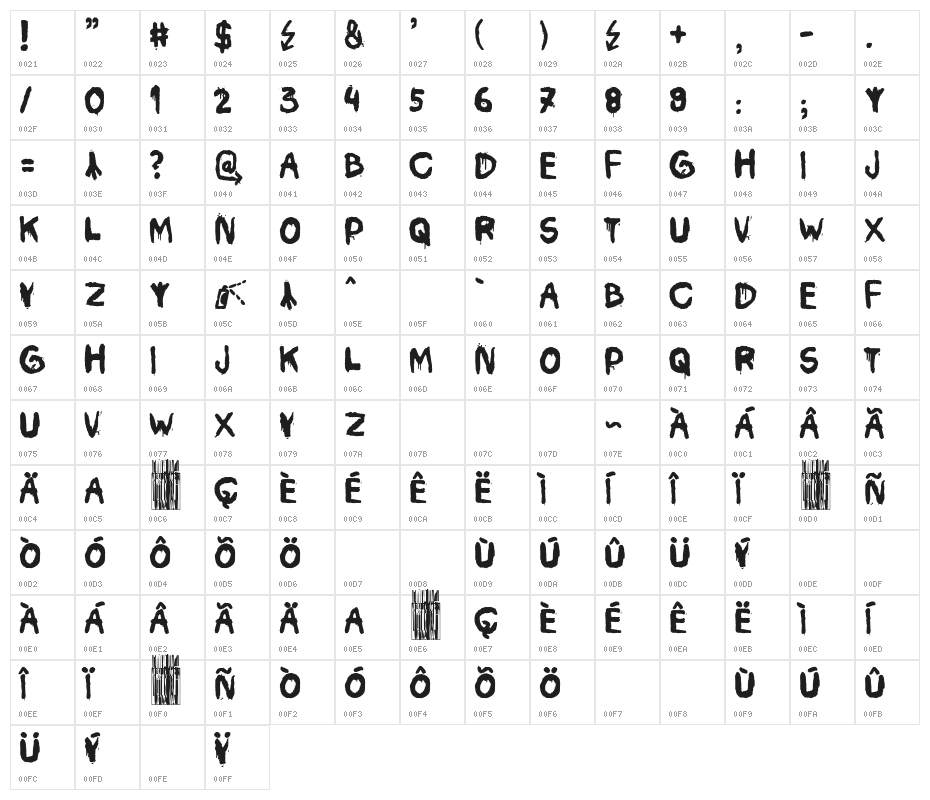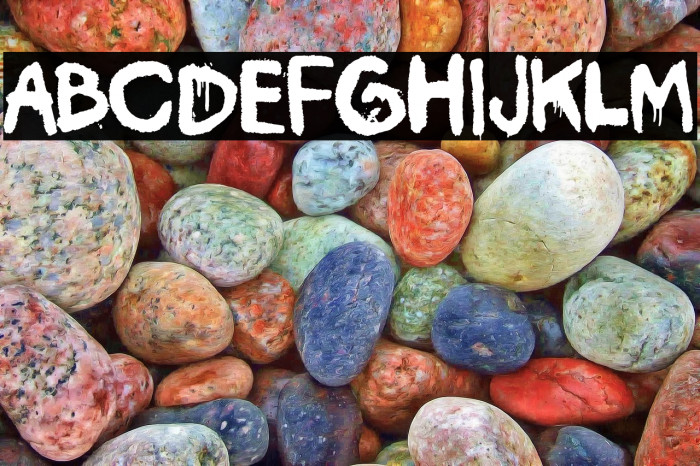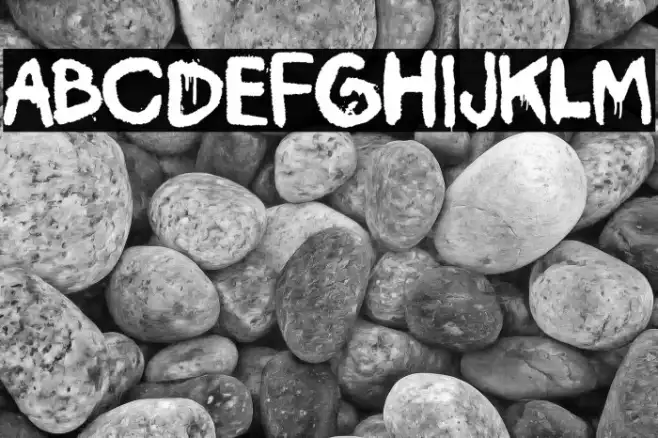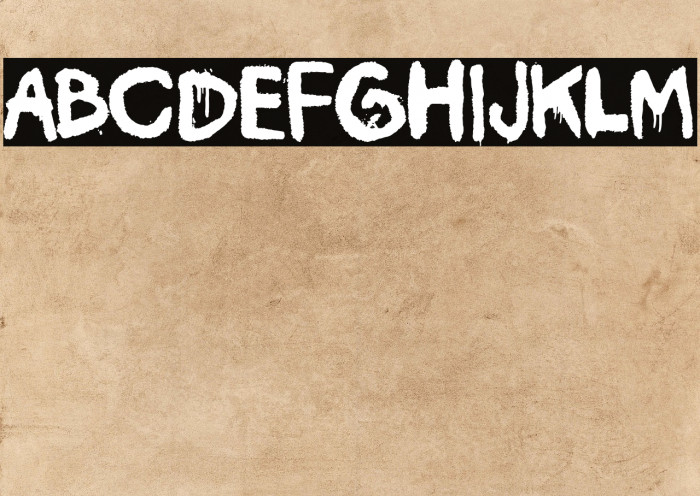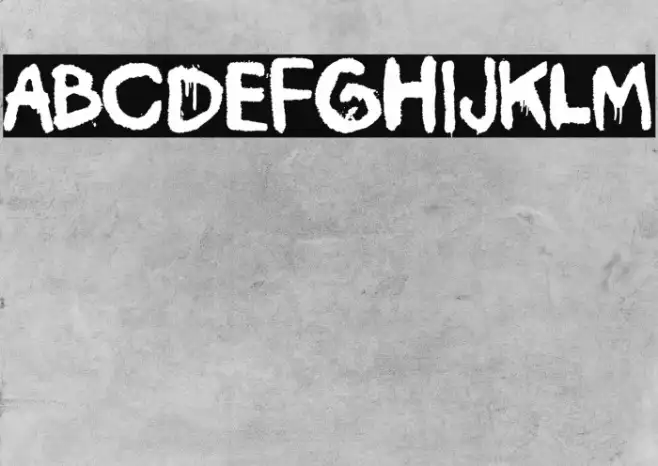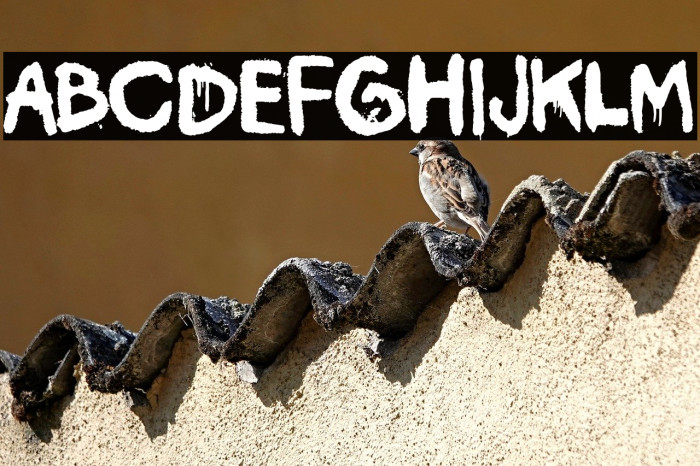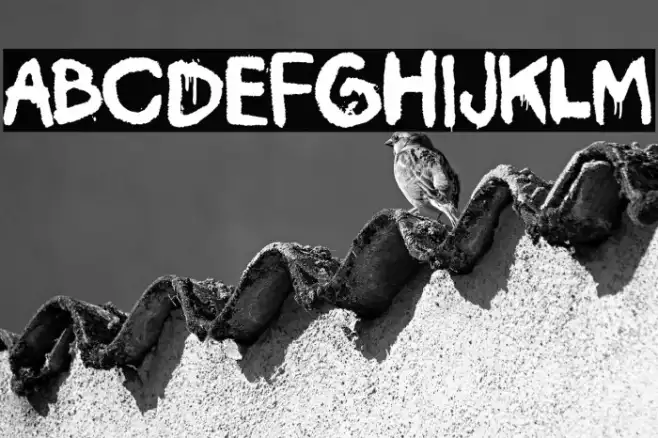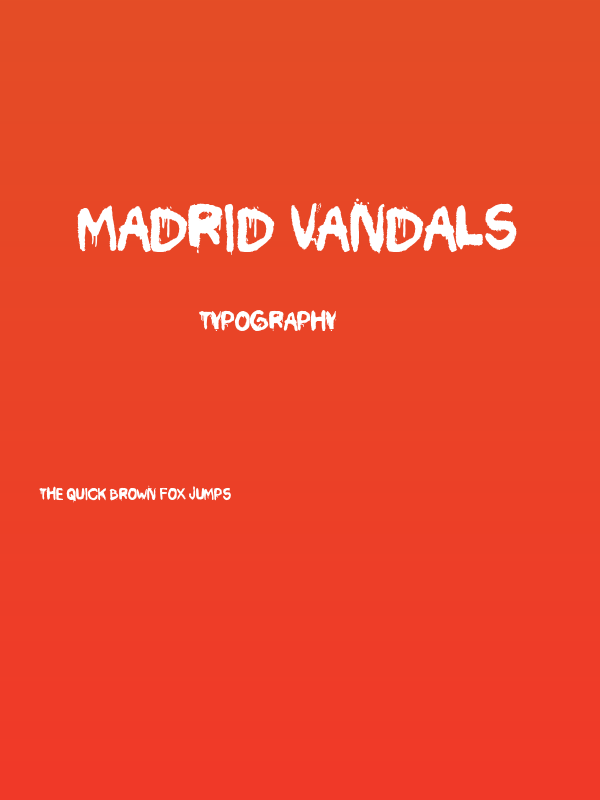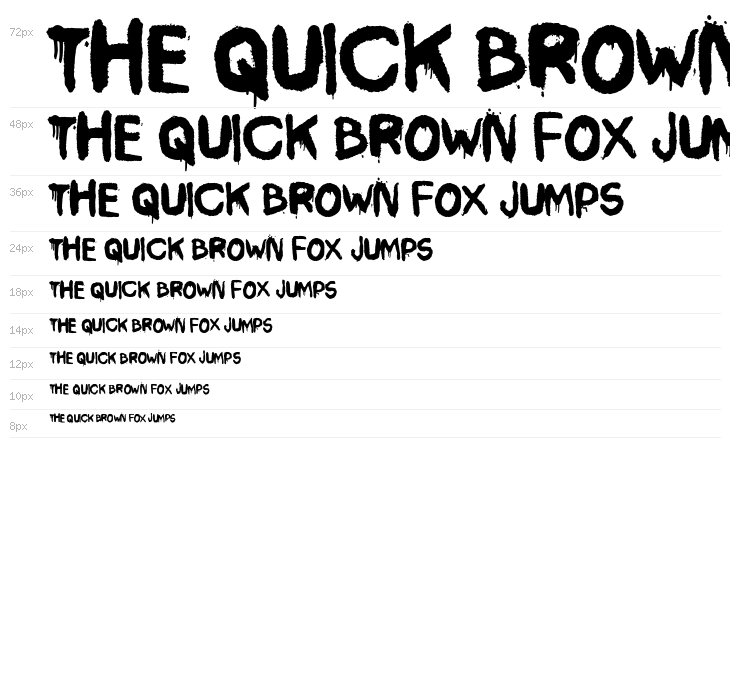
Madrid Vandals Font
Madrid Vandals Description
This font exudes a raw and edgy aesthetic, reminiscent of urban graffiti art. The characters are bold and expressive, with uneven edges and splatter effects that mimic spray paint. Each letter has a unique, hand-drawn quality, giving it a dynamic and rebellious feel. The uppercase and lowercase letters maintain a consistent style, while the numbers and special characters follow suit with the same artistic flair. This font is perfect for projects that aim to capture a sense of street culture or convey a bold, artistic statement.
| Overall Style | Urban, Graffiti, Artistic |
| Proposed Projects | Ideal for street art projects, urban-themed posters, edgy branding, and music album covers. |